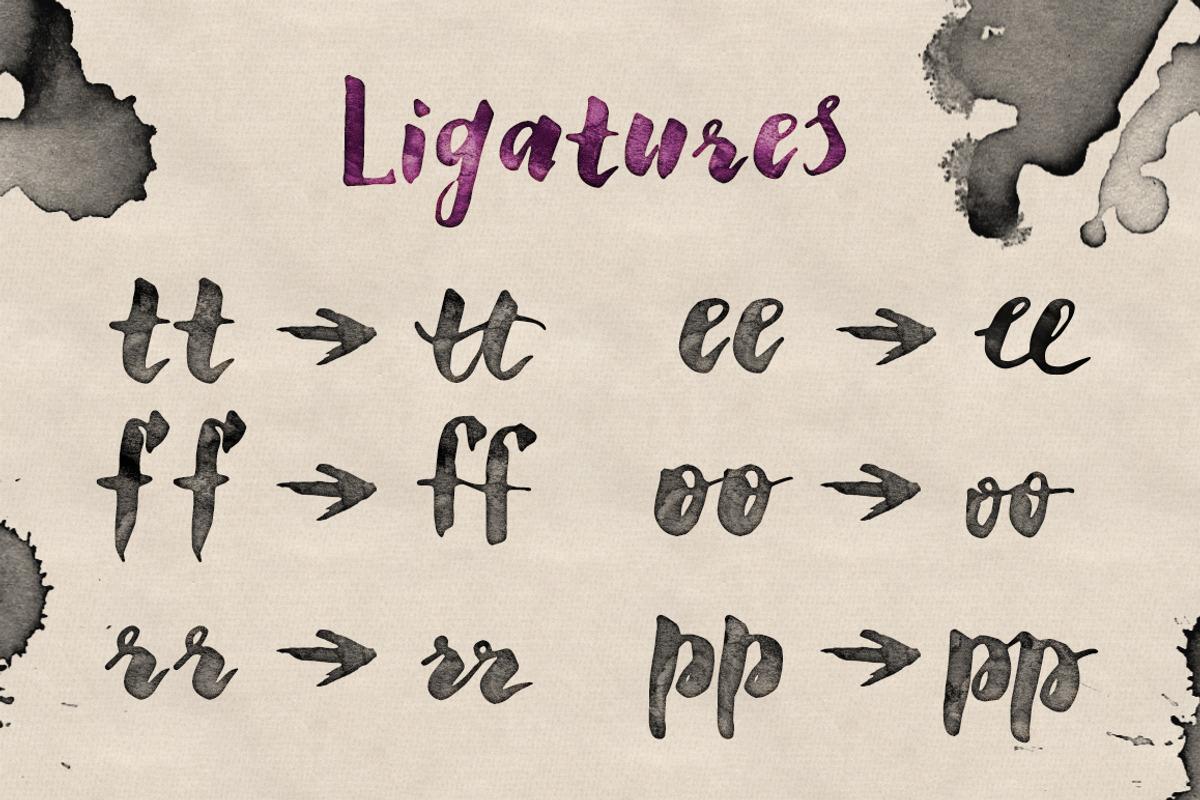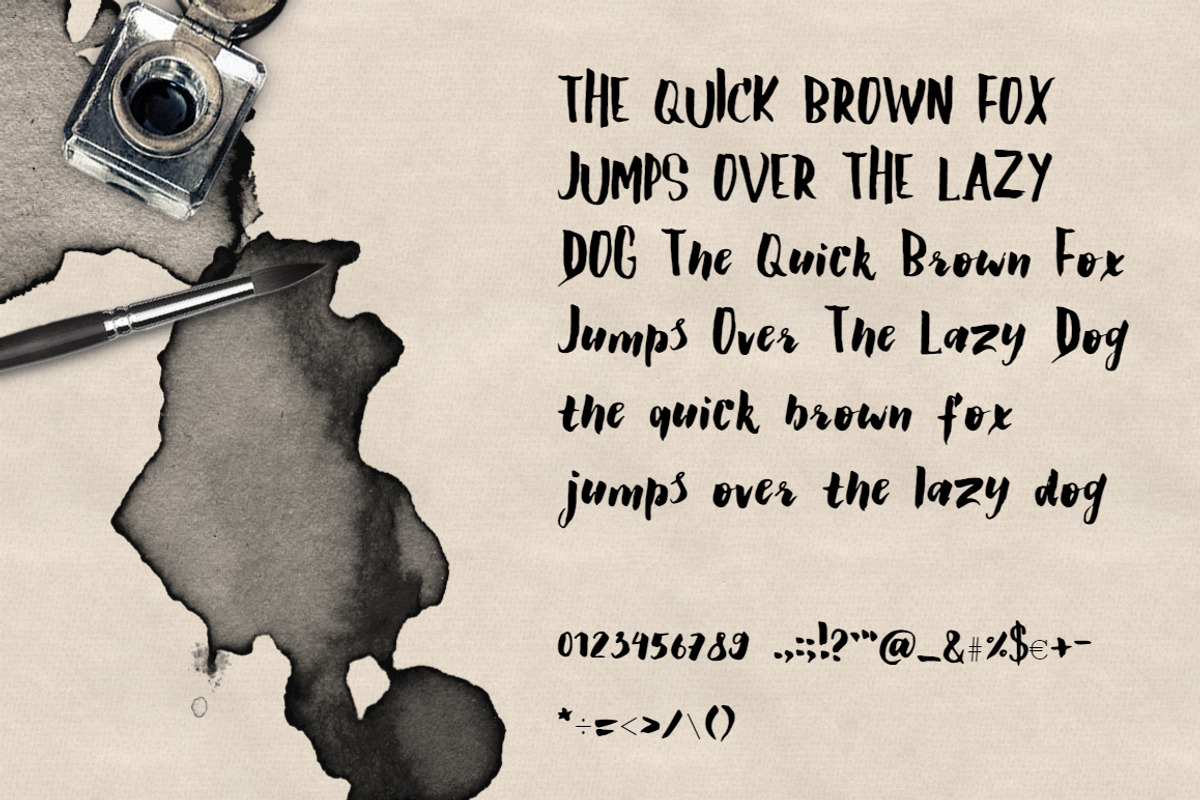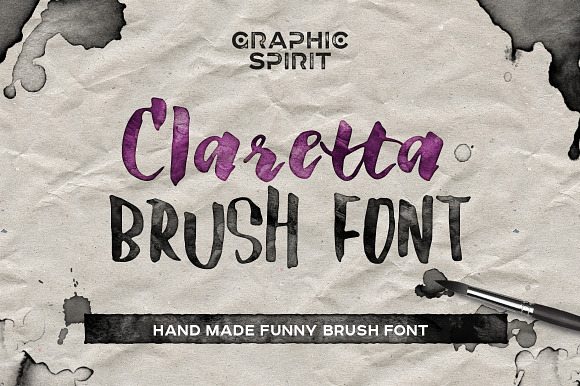
Claretta Brush Ink Font
Download this fun, playful font, hand-drawn brush and ink. It is perfectly suitable for the decoration of informal postcards, posters, kraft style packaging.
Why Claretta Brush Ink Font is worth a look
Claretta Brush Ink Font by Graphic Spirit fits naturally into Branding, posters, packaging, typography.